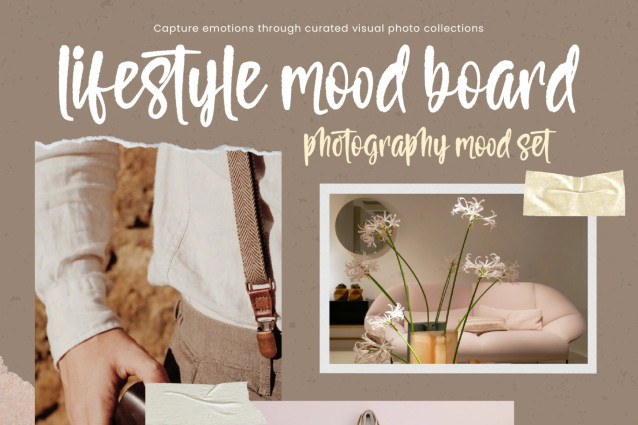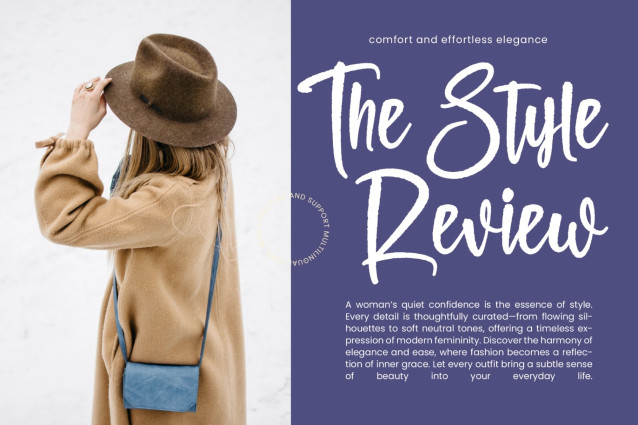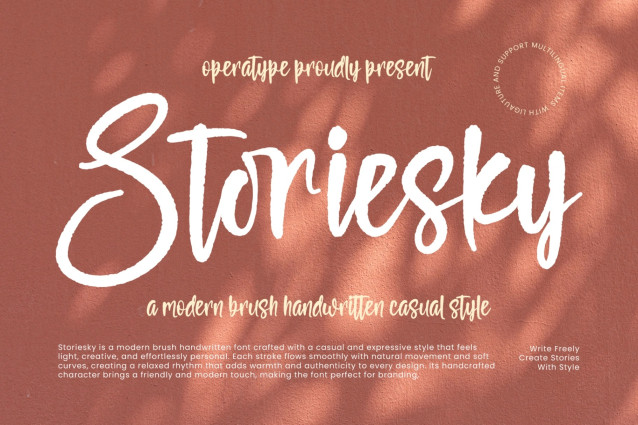
Storiesky Font
Storiesky Font is a modern brush handwritten font designed with a casual, expressive, and naturally flowing style. Inspired by authentic hand-drawn lettering, this typeface captures the warmth of personal handwriting while maintaining a clean and contemporary appearance that feels fresh and versatile.
Featuring smooth brush strokes, relaxed curves, and handcrafted details, Storiesky delivers an effortless handwritten look that adds personality and charm to any design. Its friendly and approachable character makes it ideal for projects that require a creative, authentic, and modern touch.
Whether you’re creating branding materials, social media graphics, packaging, logos, invitations, or lifestyle content, Storiesky helps your designs feel more engaging, personal, and memorable.